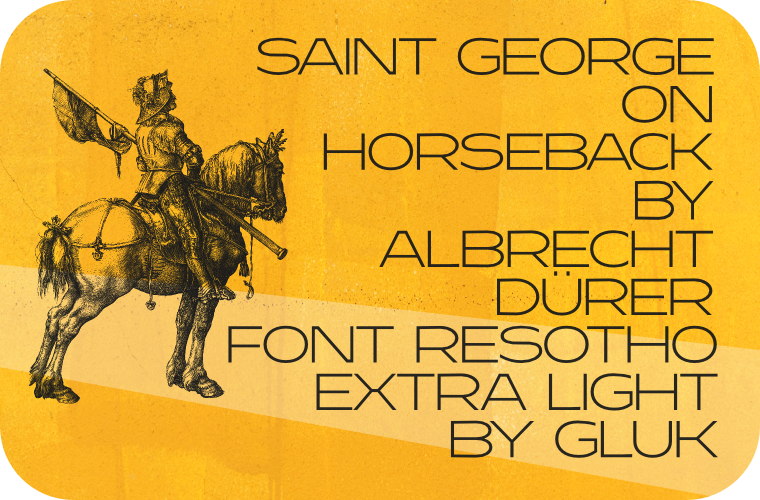
Font Resotho Extralight is a free (0$) member of Resotho: geometric sans serif (uppercase) family. It comes in 18 weights, 9 uprights and 9 italics. Perfect for graphic design, branding, packaging design but very versatile. Language support covering Western, South, and Central Europe.